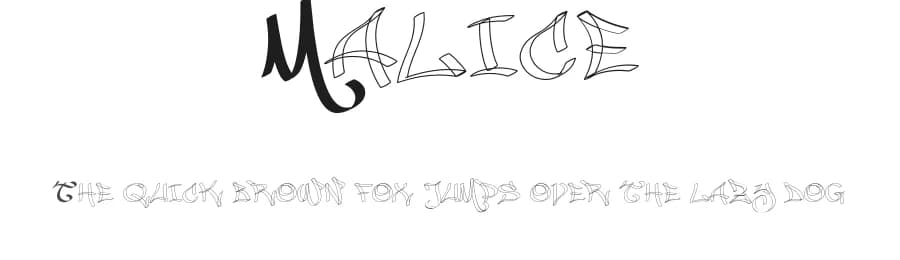
About Malice Font
Malice is a handwritten script typeface by Lukas Schiltknecht that channels raw graffiti energy into a digital font. With its edgy, unpolished character, it brings authentic street-style lettering to any creative project that calls for attitude and movement.
The font's raw energy makes it ideal for music posters, album artwork, and event flyers where impact matters more than restraint. Streetwear brands and skateboard graphics benefit from its unapologetic style, as do zine covers, urban art commissions, and graffiti-inspired logos for underground movements. Designers working on tattoo lettering concepts or comic book covers will find Malice's expressive weight and flow particularly suited to those visual applications. Supporting 164+ Latin-based languages across 144 glyphs, the typeface handles international text while maintaining its consistent character across different writing systems.
The font is available as a free download from this page, with licence terms shown there; review the terms before using. Pair Malice with a clean, neutral sans-serif to balance its rebellious character: use the handwritten script for headlines and key messaging, then anchor body text and supporting information in a quieter typeface to ensure readability and let the graffiti style shine where it matters most.
Malice Font is a script font that shines as a display or heading face. Pair it with a clean sans-serif or serif font for body text β the contrast creates a clear hierarchy while the two styles stay balanced and easy to read.